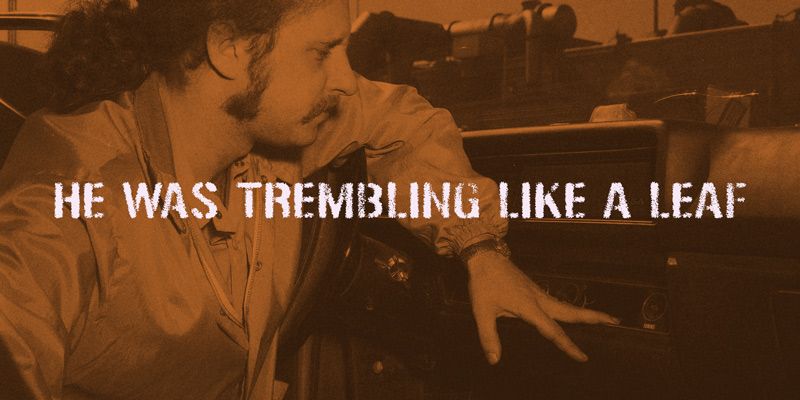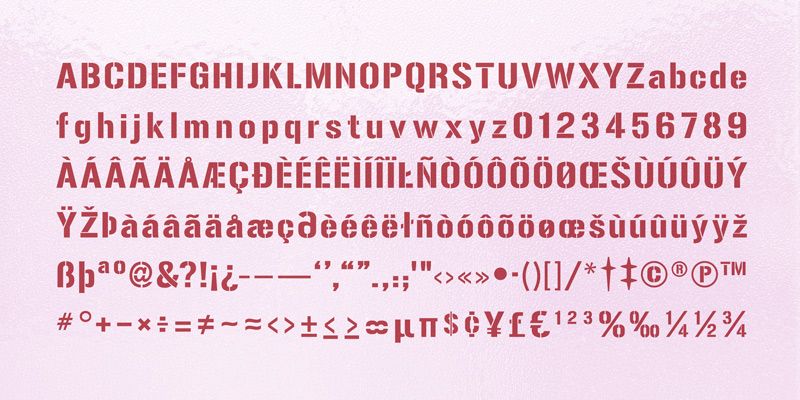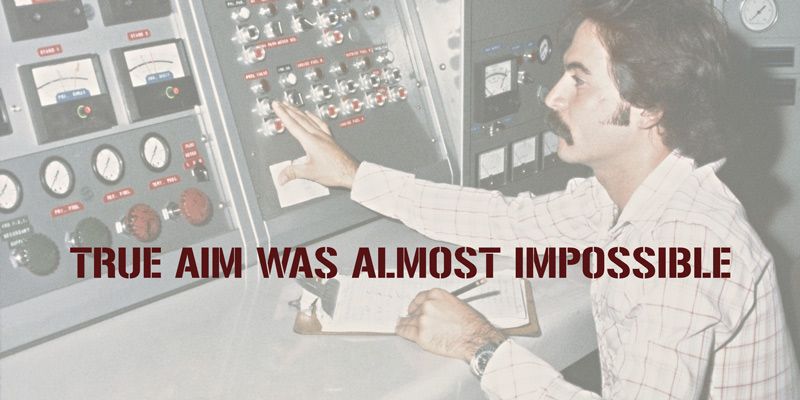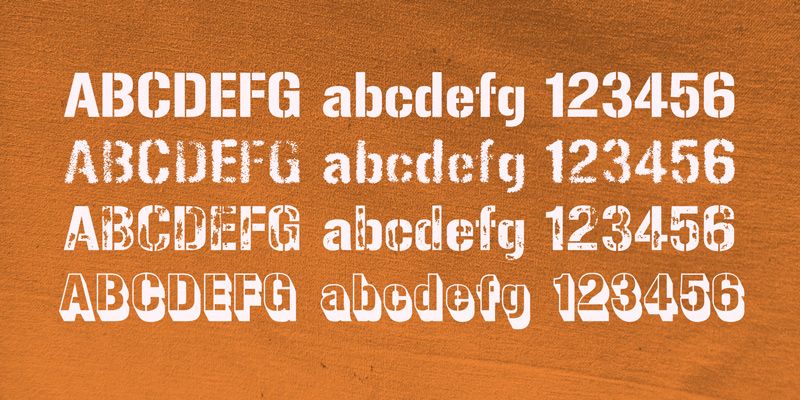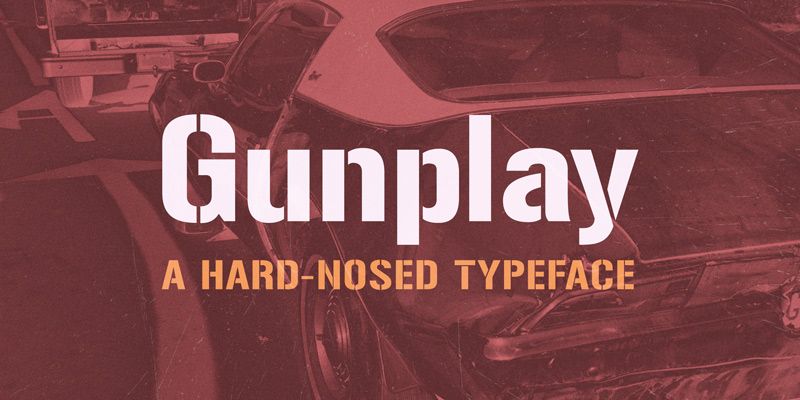
Gunplay is a forceful stencil with a cinematic source in the poster for the 1972 film The Getaway. The clean Regular style establishes its cut-out shapes; Damage and Spraypaint move those same forms toward worn equipment and freshly marked surfaces. That gives a project a way to keep one visual identity across polished graphics, road cases, barriers, crates, and industrial scenery. Gunplay suits concert tours, live-event production, equipment rental, action games, and film environments that need unmistakable labels with physical grit. Choose the finish for the surface the lettering is meant to inhabit; the three styles can imply very different stages of use.